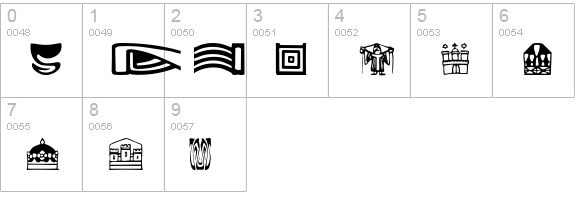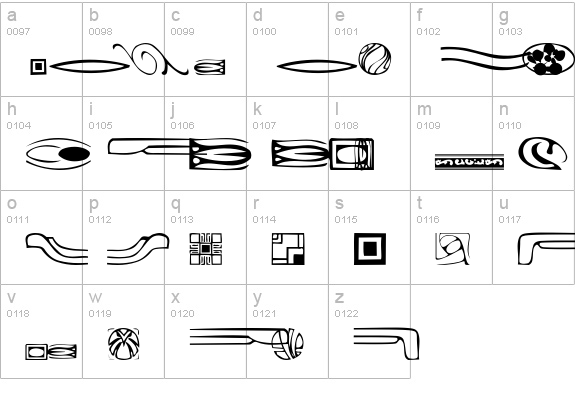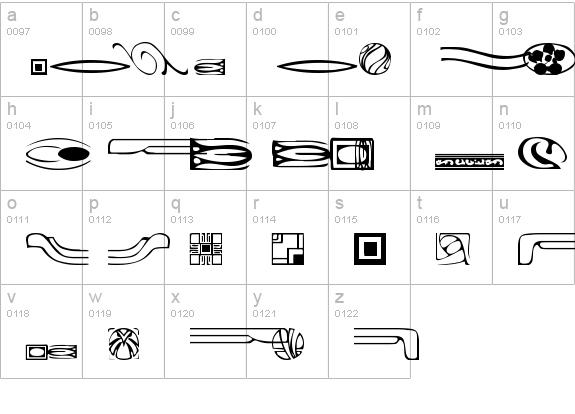
Griffinone Font Details
Griffinone font is a modern and stylish typeface that exudes elegance and sophistication. With its clean lines and unique design, Griffinone is perfect for a wide range of design projects, from branding to editorial work. This versatile font is sure to make your designs stand out and leave a lasting impression on your audience. Best of all, Griffinone font is completely free to download at FontsMarket.com. Whether you're a professional designer looking for a new addition to your font library or a hobbyist in need of a fresh look for your projects, Griffinone font is the perfect choice. Don't miss out on this amazing opportunity to enhance your designs with this beautiful and eye-catching font. Download Griffinone font today and take your designs to the next level!